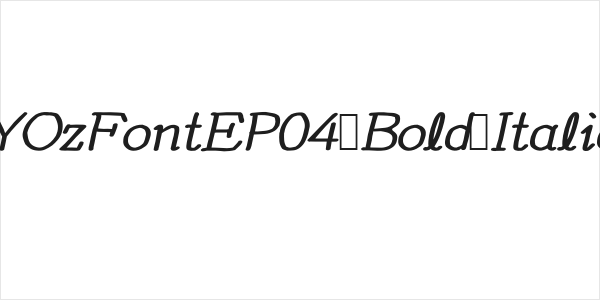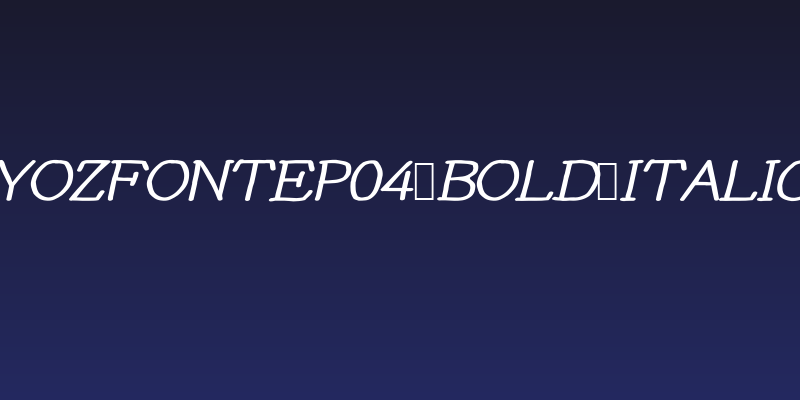
YOzFontEP04 Bold Italic Font
YOzFontEP04 Bold Italic Description
This font features a bold and italic style, characterized by its dynamic and flowing letterforms. The uppercase letters are slightly slanted, giving a sense of movement and elegance. The lowercase letters maintain a consistent slant, complementing the uppercase with a harmonious balance. Numbers are bold and clear, ensuring readability. Special characters are well-defined, maintaining the overall aesthetic. The font's boldness is balanced with a medium contrast in stroke thickness, providing a modern yet classic appeal.
Use CaseHeadlines, Logos, Invitations
Proposed ProjectsIdeal for branding projects, elegant invitations, or stylish headlines that require a touch of sophistication.